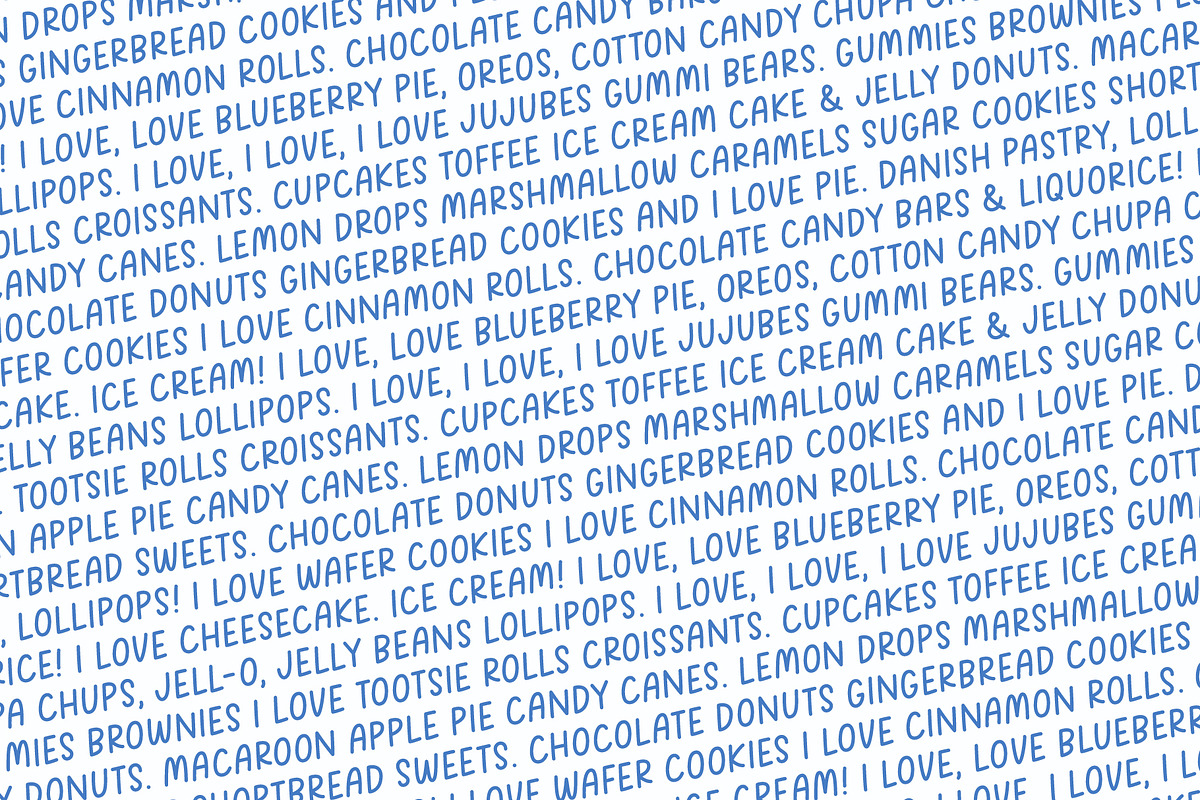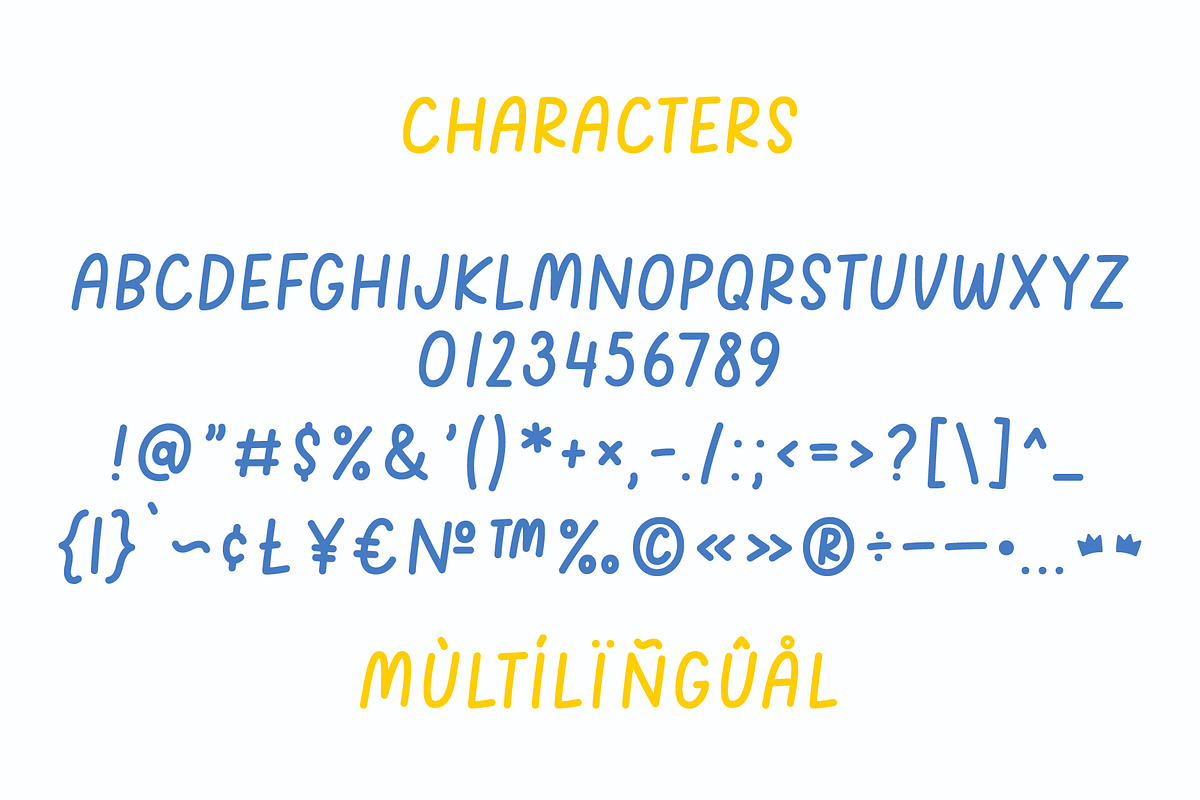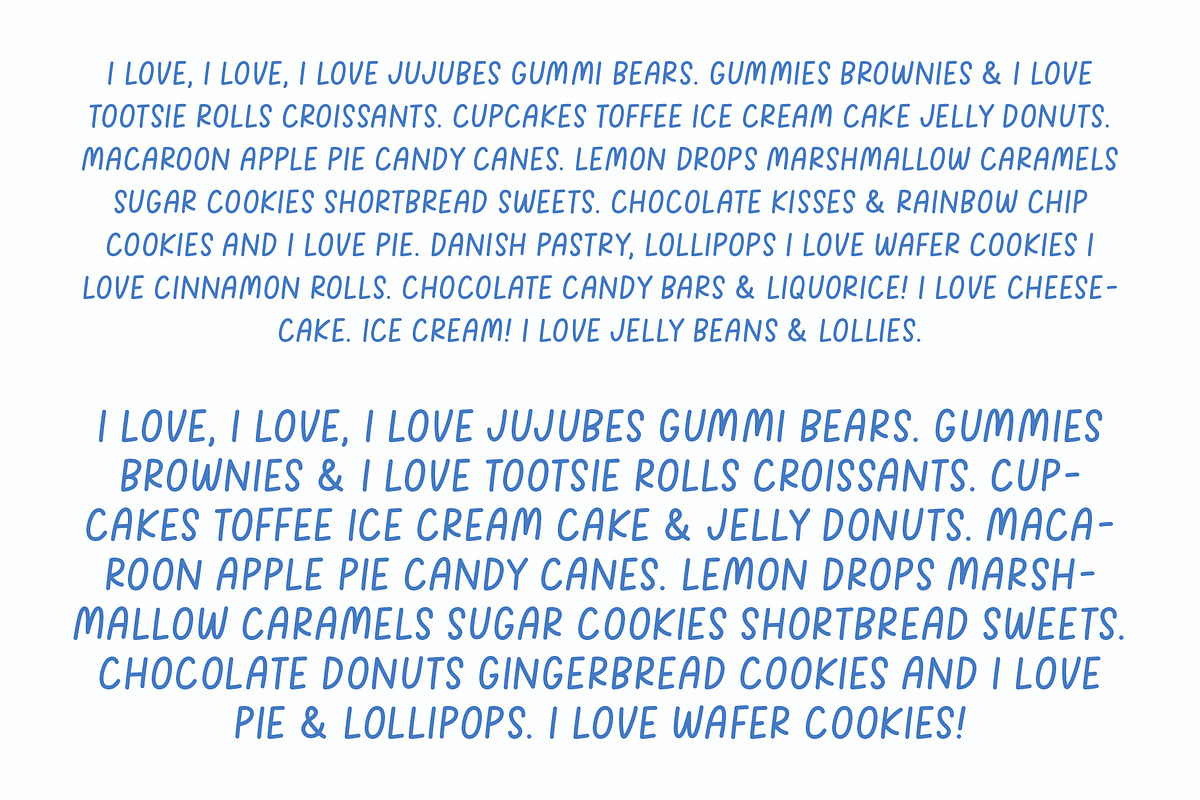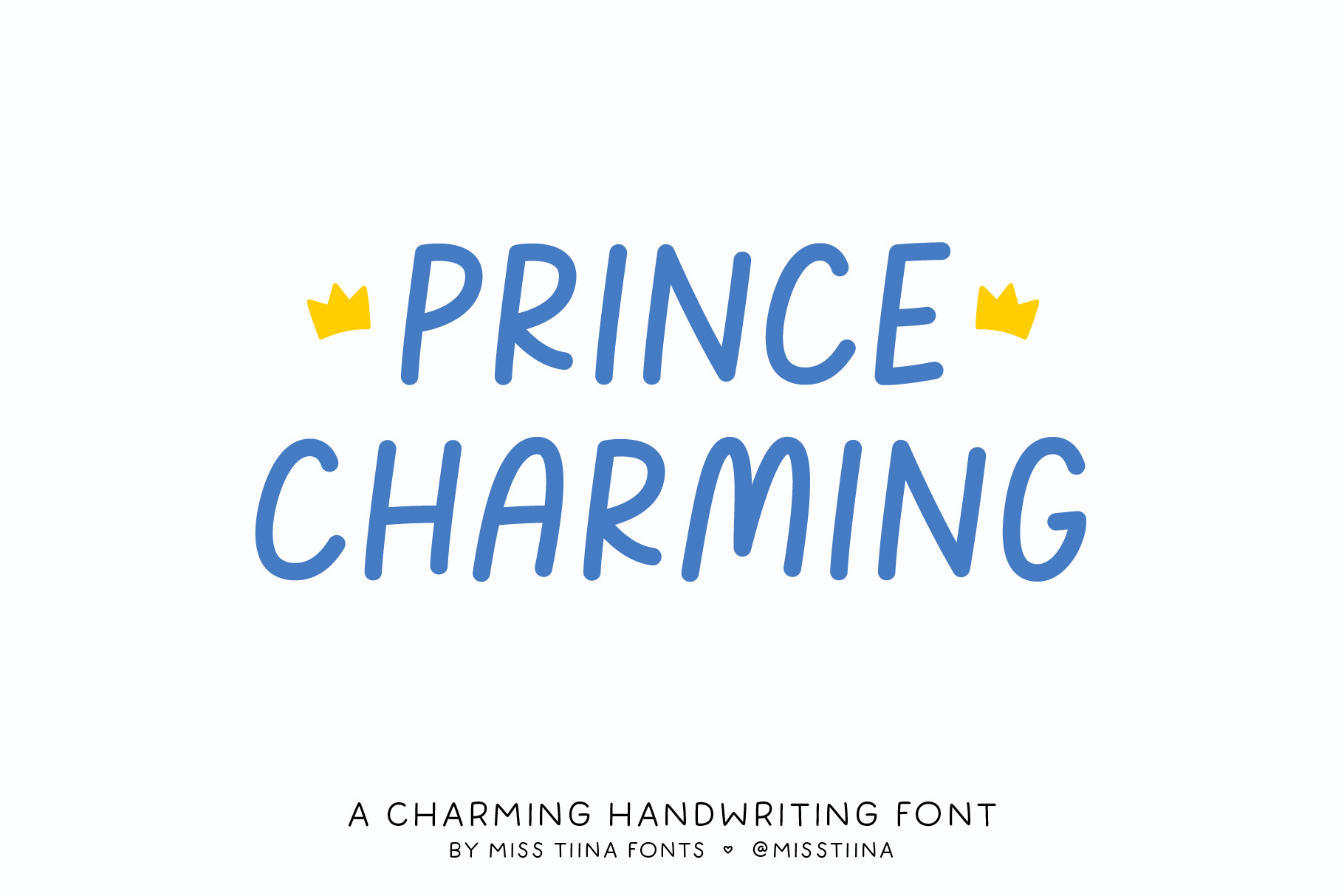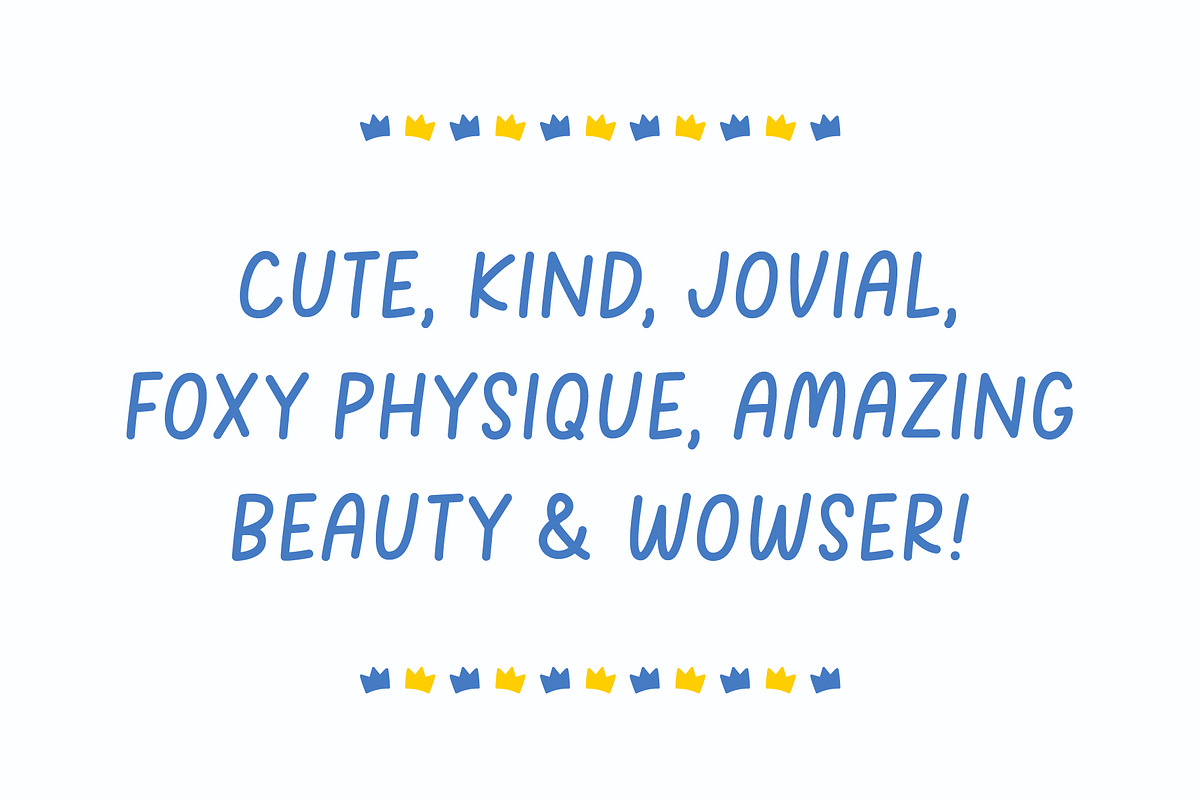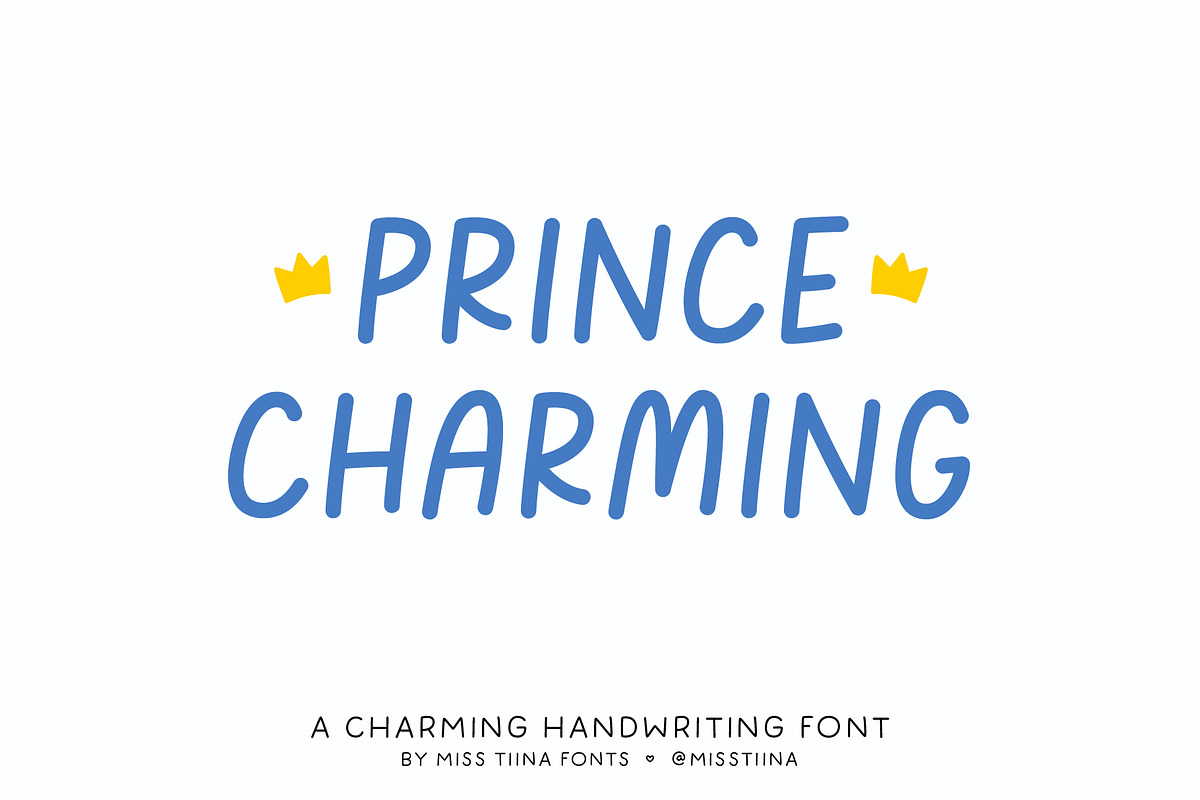
Prince Charming Font
Get lost in the captivating allure of the Prince Charming font. This irresistible typeface blooming with sweetness and charm flaunts an all-uppercase italic design. It elegantly placed itself as an ideal typography tool for various applications ranging from attention-grabbing headlines and chic posters to stylish stationery pieces, and beyond. Experience the versatile personality of Prince Charming, transforming your ordinary text into enchanting written art.